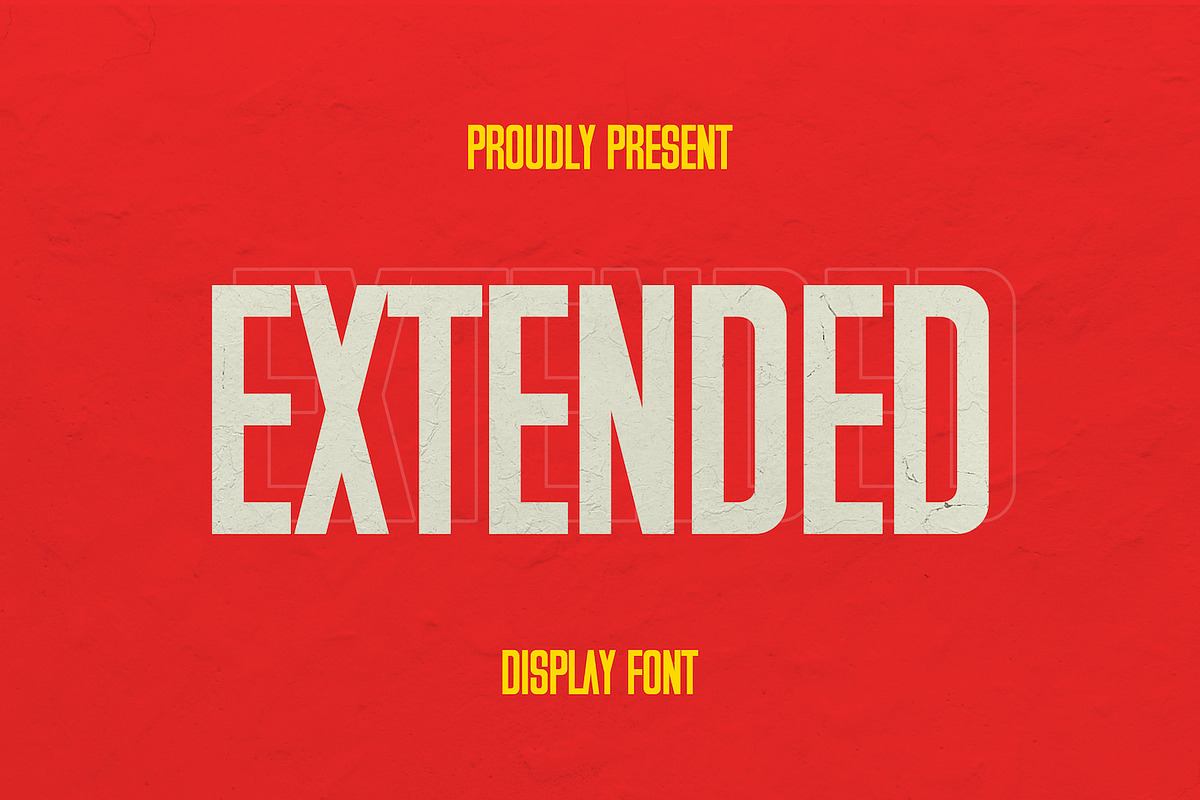
Extended - Tall Sans Serif Font Free Download
Extended - Tall Sans Serif Font Free Download is a sleek and modern typeface featuring tall, narrow letterforms that deliver a bold, sophisticated look. Designed for impactful display use, this font is perfect for headlines, posters, editorial layouts, branding, fashion campaigns, and web design that calls for clean, vertical elegance.
Its condensed style allows you to save space without sacrificing readability, while the minimalist aesthetic adds a professional and contemporary vibe. Whether you're creating a high-fashion logo or stylish social media content, Extended brings both structure and style to the table.